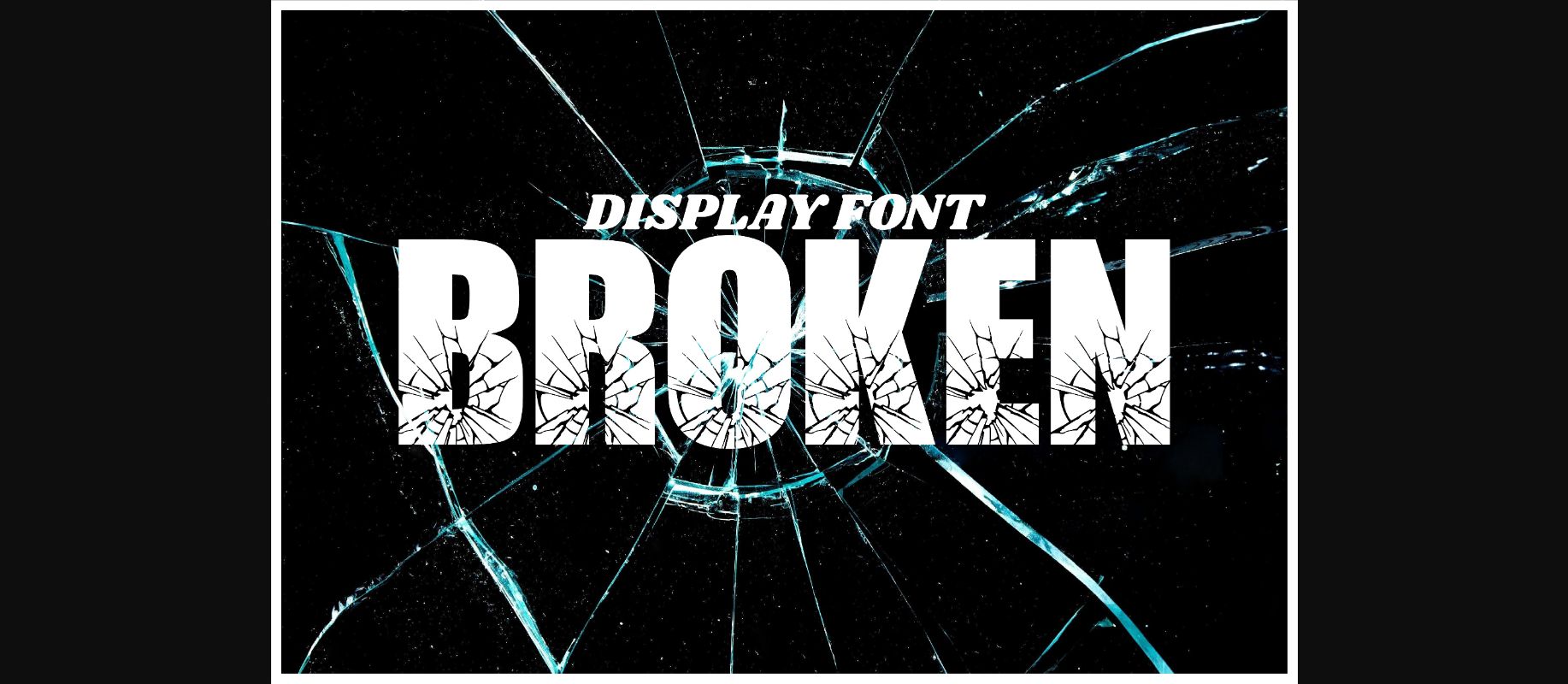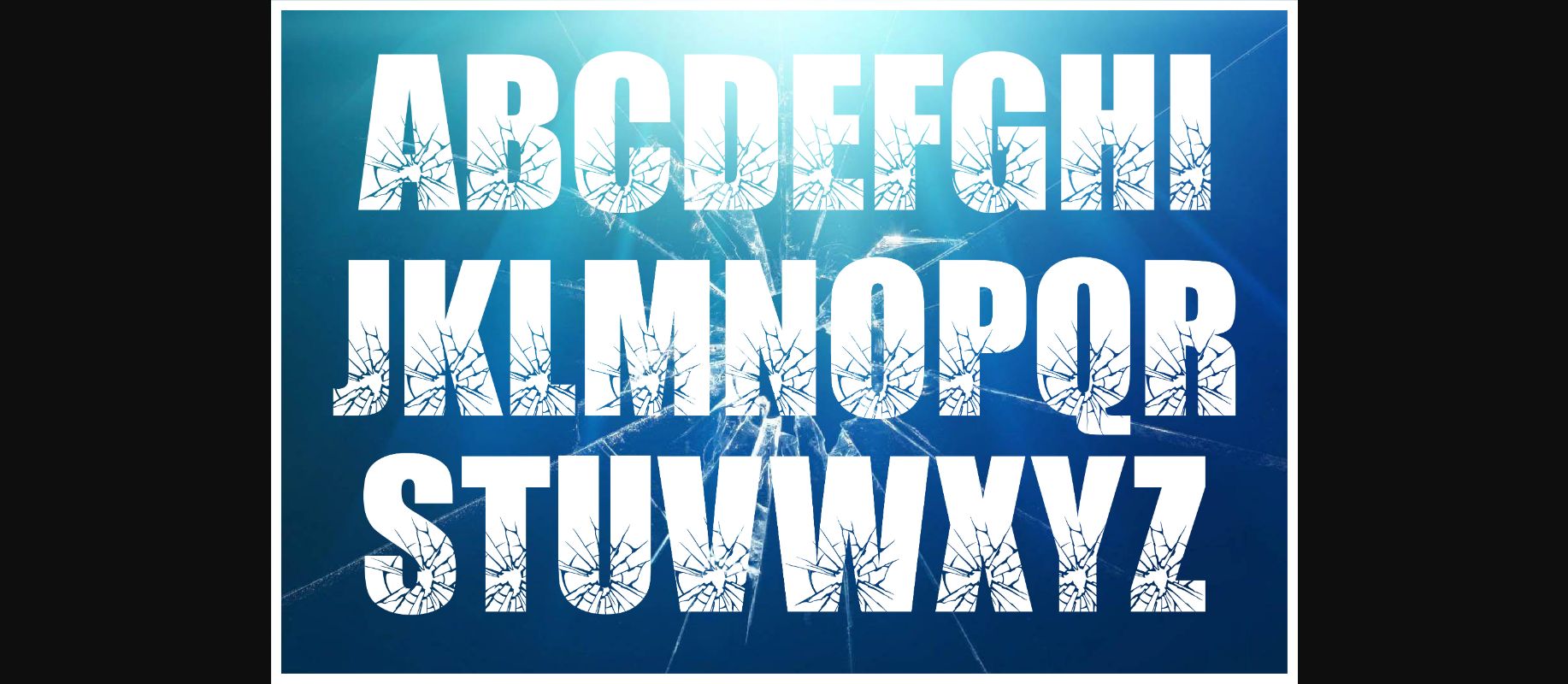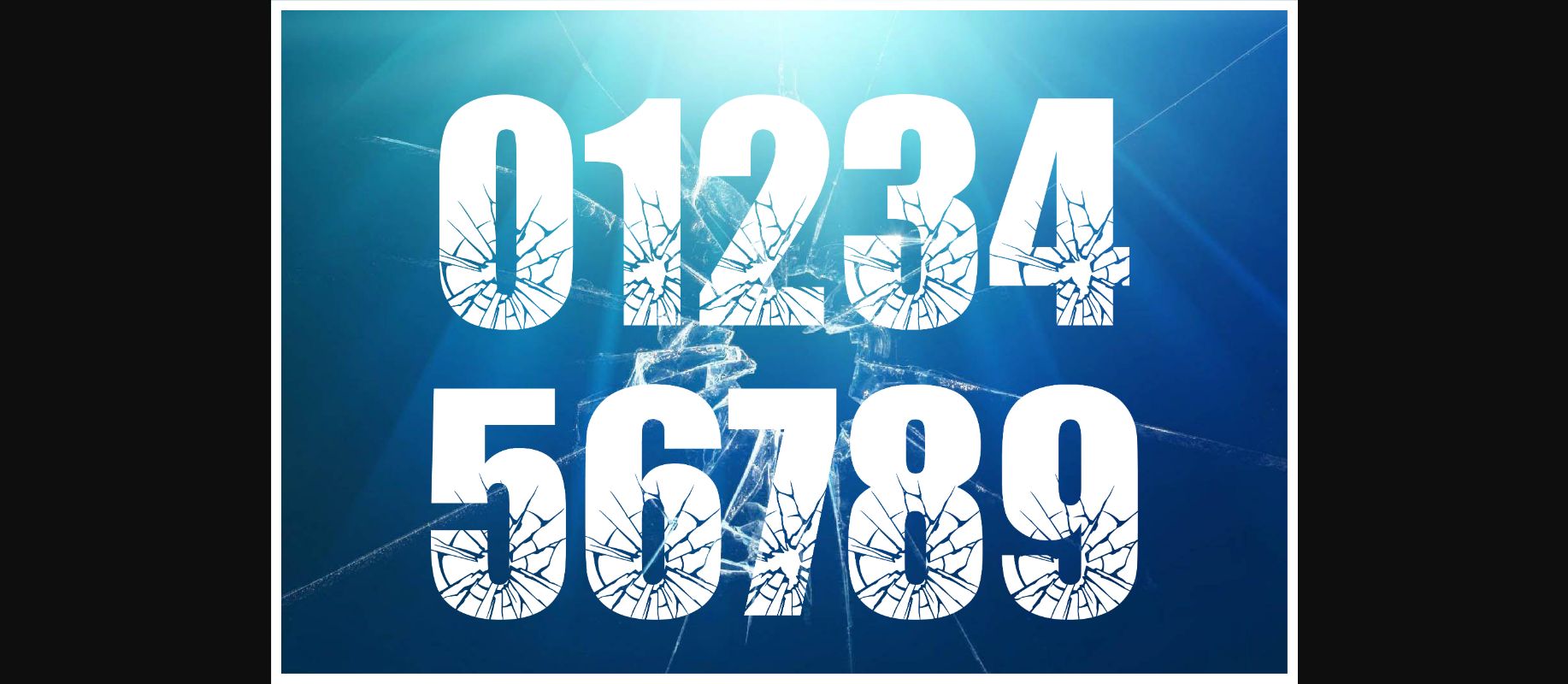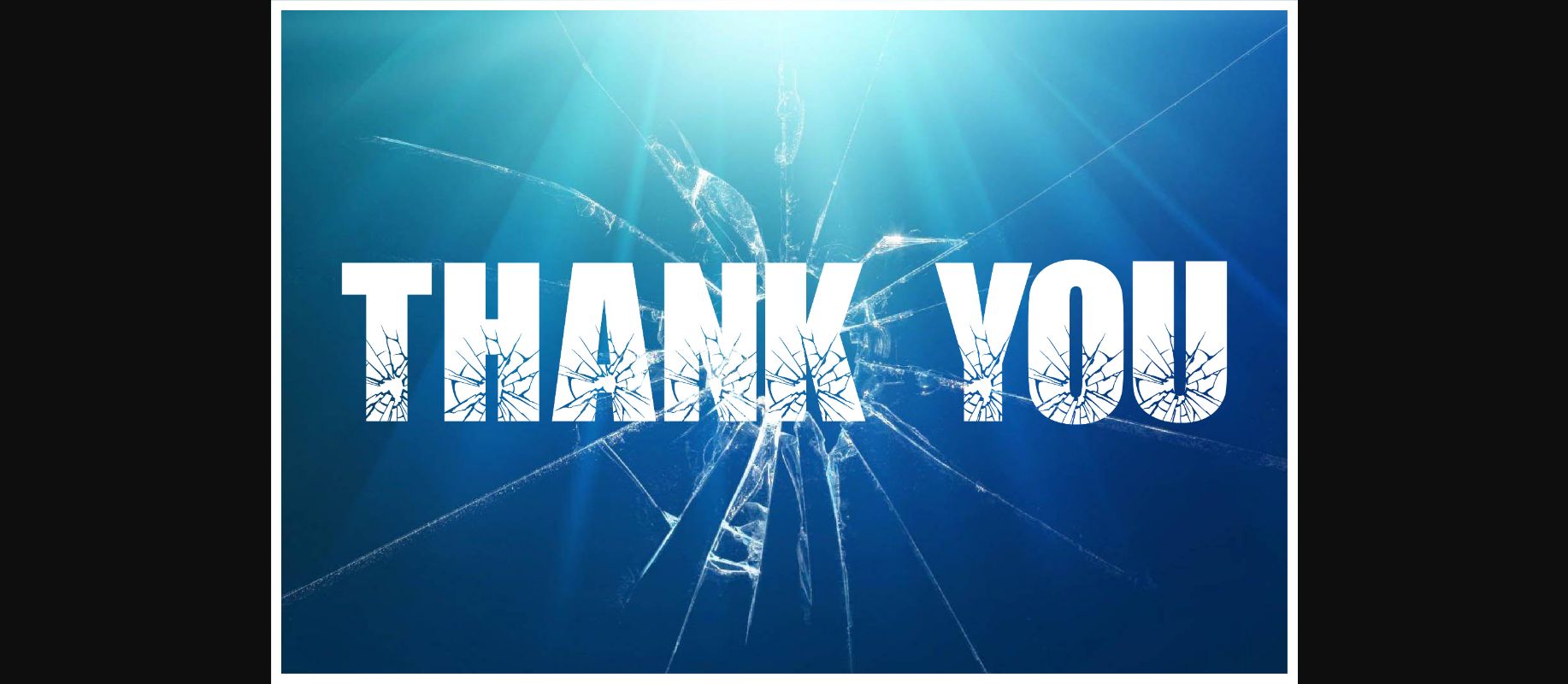
Broken is a cool and dramatic decorative font. It is perfectly suitable for any design or crafty idea! Add it confidently to your projects and you will love the results!